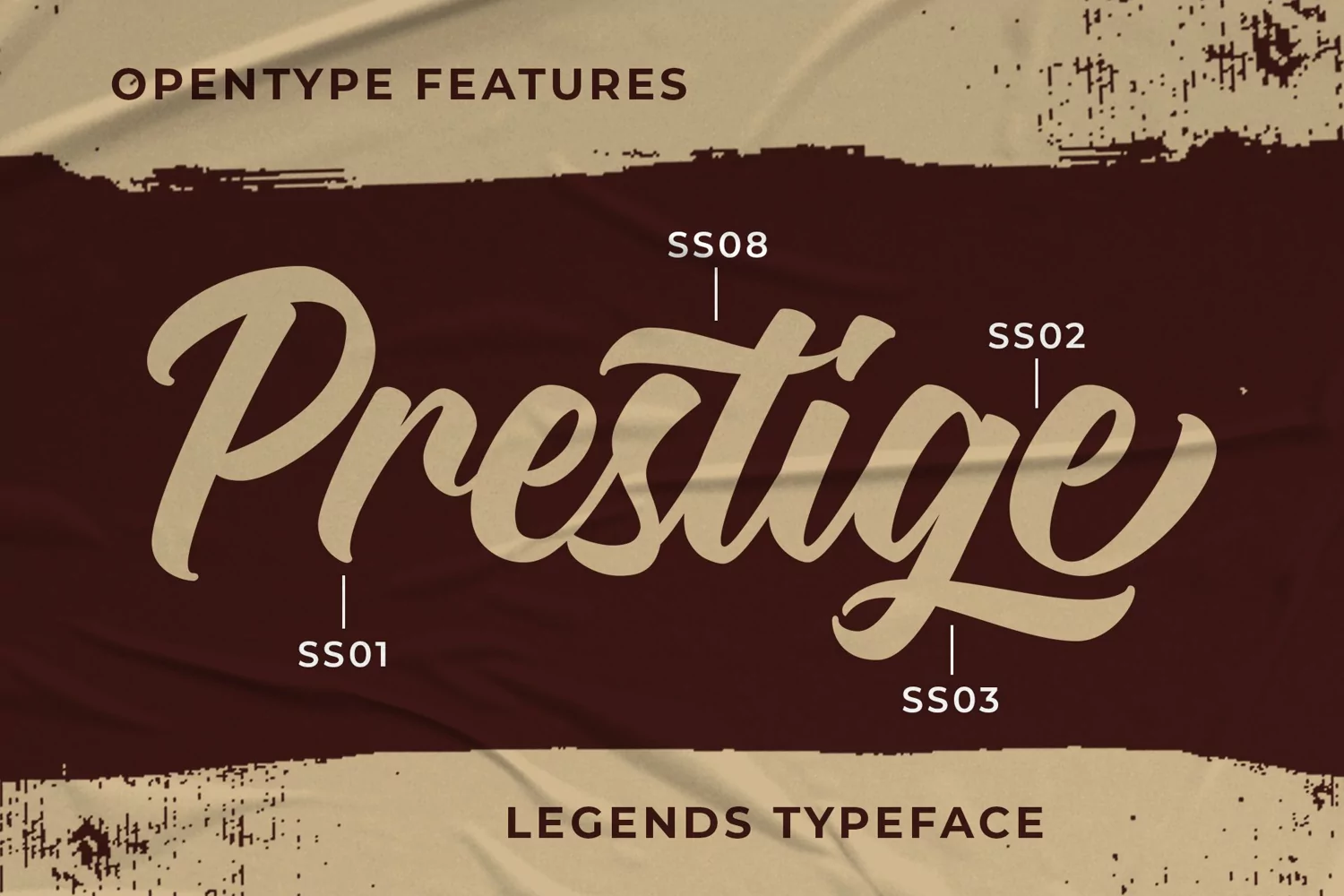
Legends Script is hand-lettering style script with authentic and casual feels. It will be perfectly used for Logo, Branding, T-shirt Design, Packaging, etc. Every single curve has my personality touch since I use my manual brush pen. Coming up with more than 100 stylistic alternates and ligatures you can make so many alternative choices based in your creativity.